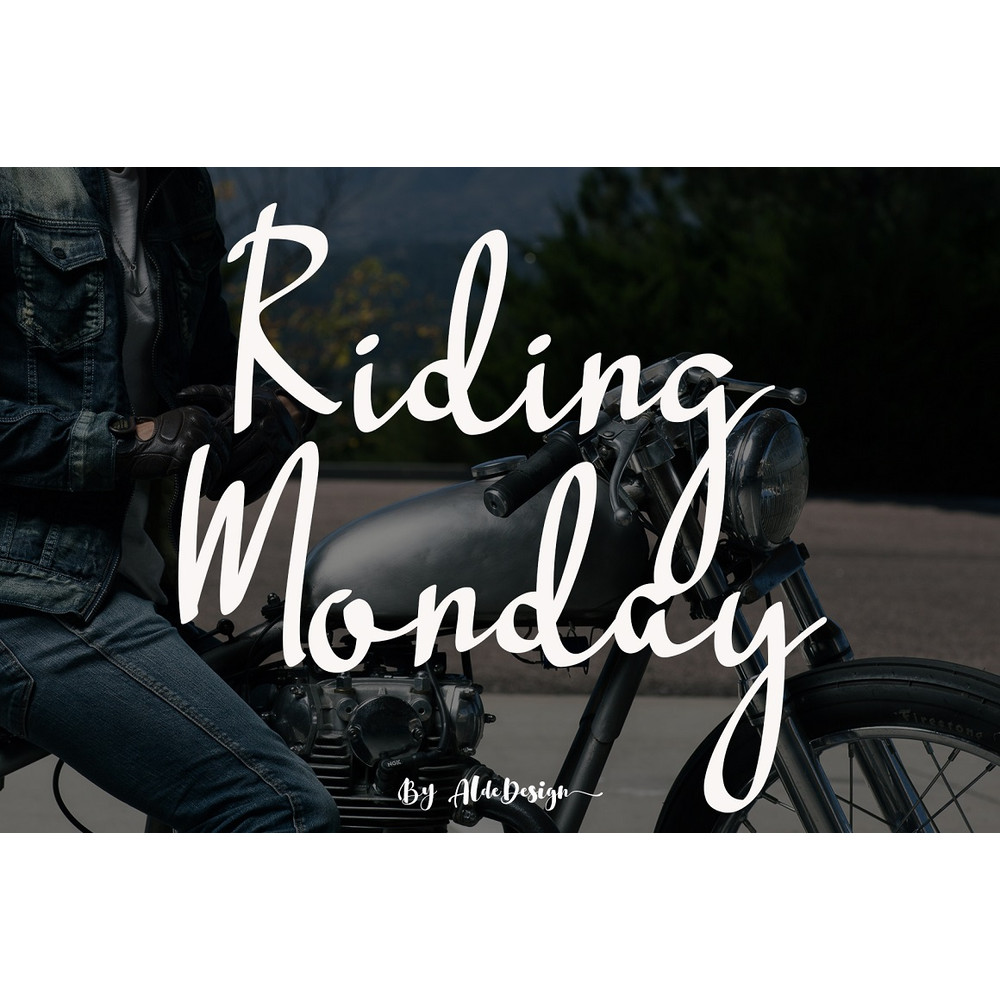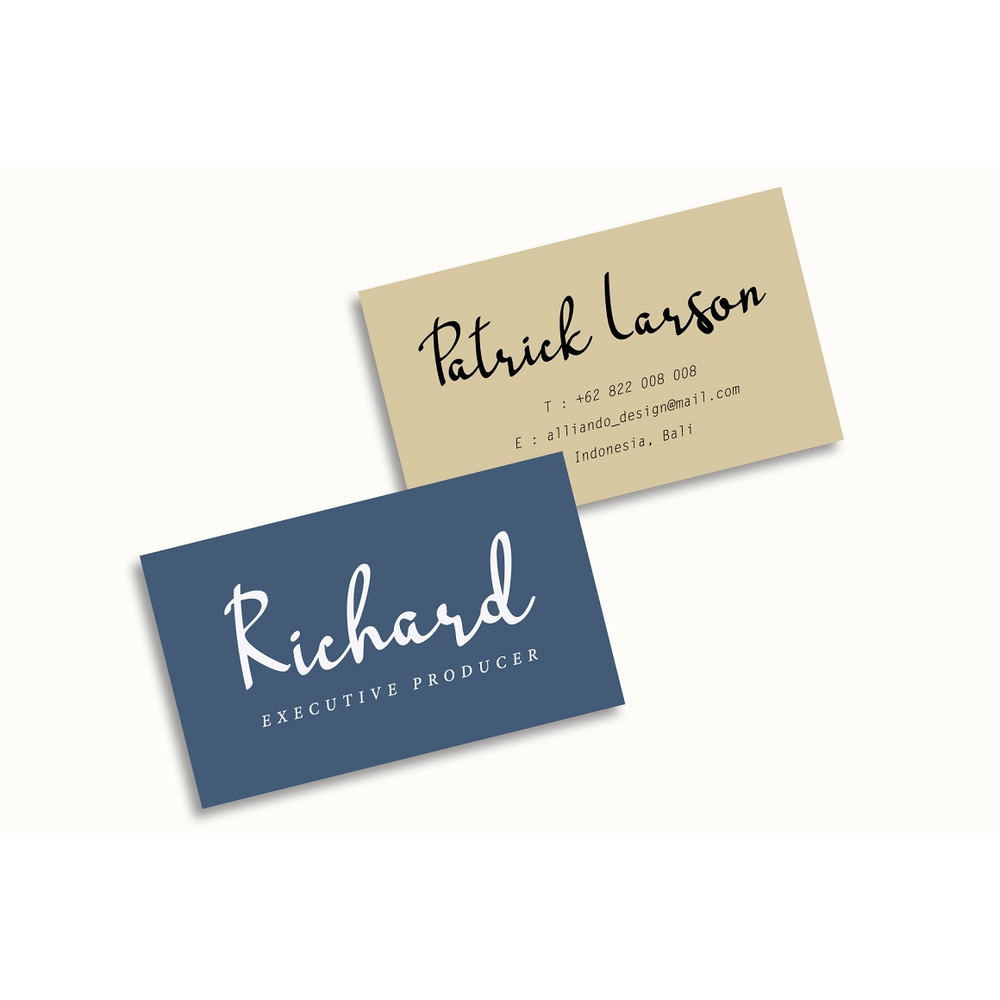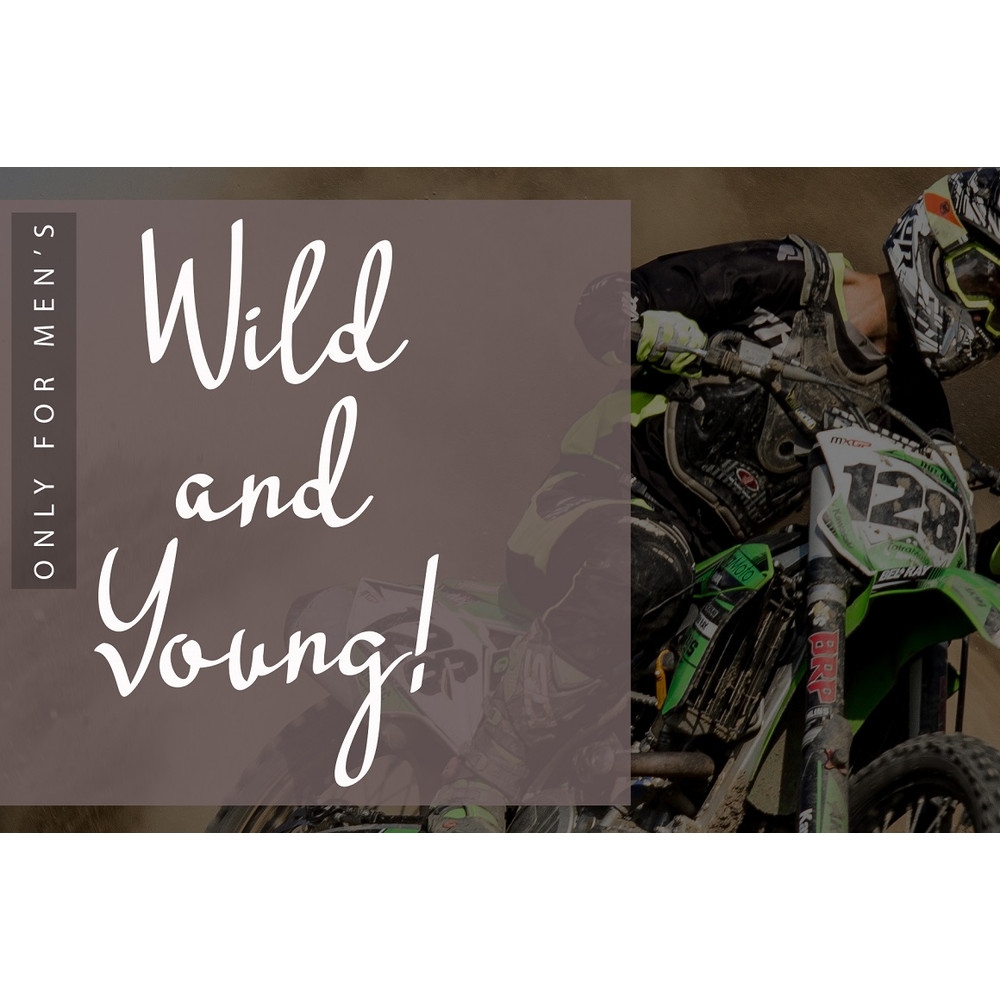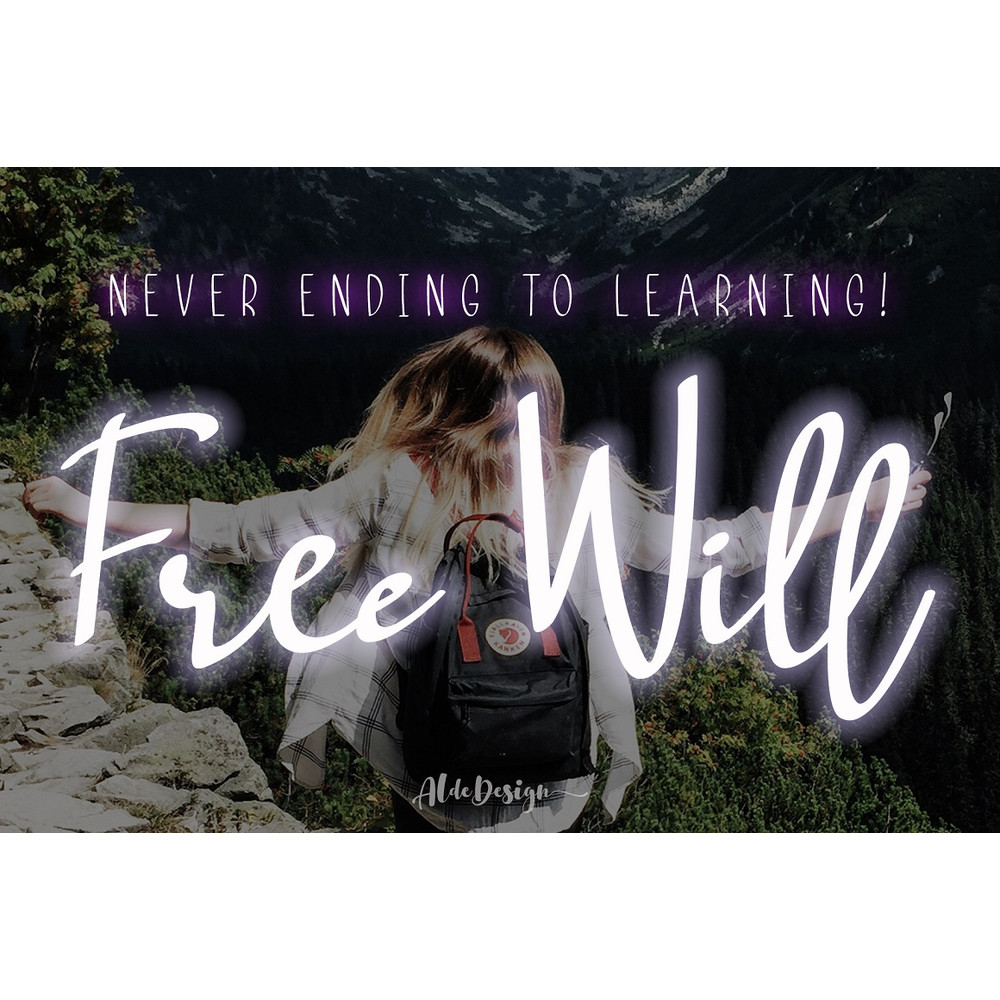
Riding Monday is a font with awesome and classy taste, comes with natural touch, so much ligatures. We keep this font looks classy, readable, elegant, stylish, catchy and absolutly easy to use.
Riding Monday is the great choice for watermark on branding, design, wedding, photography, signature, logo design, album cover, business card, quotes, and many other design project.
– Stylish handwritten style
– So much Special Ligatures